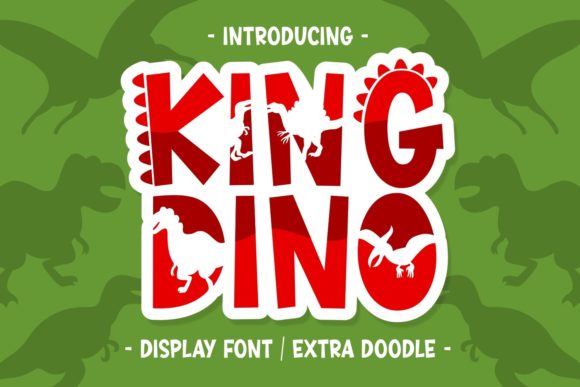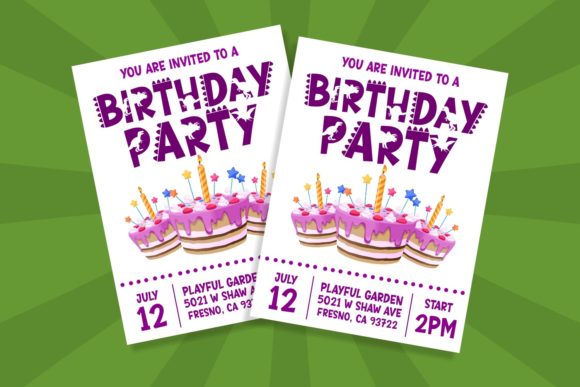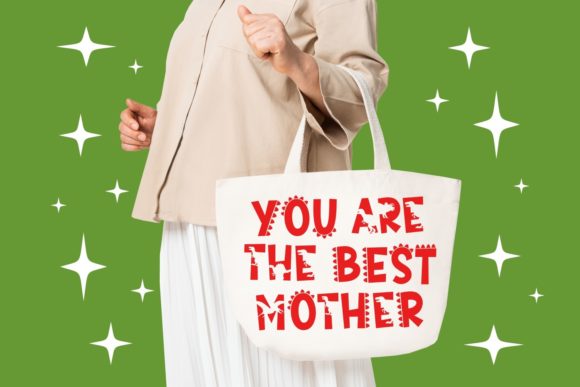
King Dino Font
About the King Dino Font
Make a bold statement with King Dino Font, a powerful and memorable font. King Dino is a friendly, bold and thick lettered display font. It is PUA encoded which means you can access all of the glyphs and swashes with ease!  This font is perfect for children themed designs, especially when combined with bright colors.
King Dino’s playful boldness makes it ideal for headlines, logos for children’s products, and eye-catching packaging. It also works well in posters and short, impactful text-based designs requiring a strong visual presence. However, its thick strokes and large x-height make it unsuitable for body text or long paragraphs; readability would suffer. Avoid using it in UI elements or situations demanding high levels of legibility.
Pairing King Dino with a clean sans-serif like Open Sans for body text provides excellent contrast and readability. For a more playful feel, consider pairing it with a handwritten script font such as Pacifico. A geometric sans-serif like Montserrat could also create a modern, balanced aesthetic.
The font’s overall personality is best described as friendly and bold, conveying energy and approachability, making it perfect for brands targeting children or families, or projects needing a fun, memorable visual impact.
King Dino Font Usage Examples
King Dino Font Example